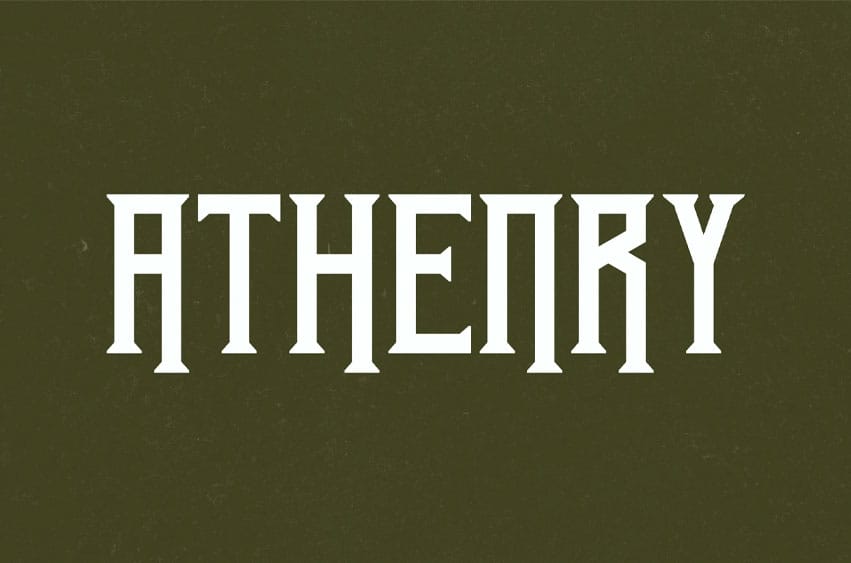
Athenry Font In the name of our love to old advertising letter style in early 1900, we proudly presents Athenry. A classic ornamental font that suits best for any vintage / classic design themes, mouse-crafted carefully with high and smooth details on every lines.